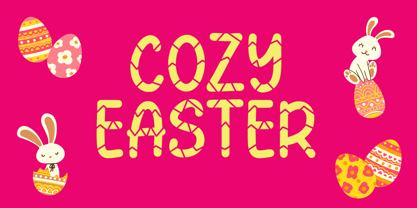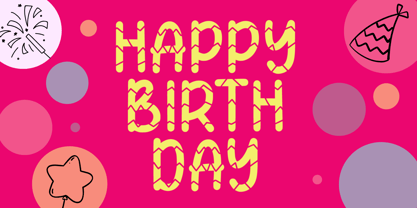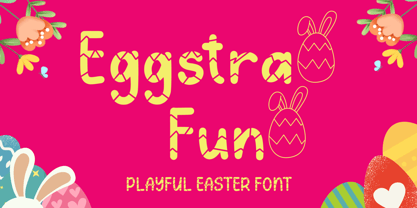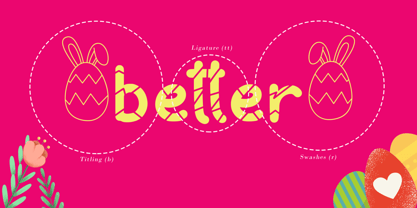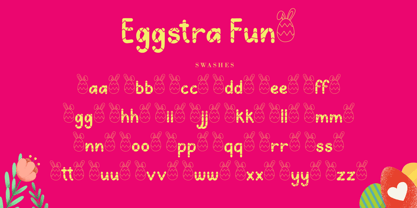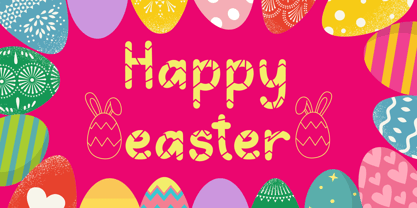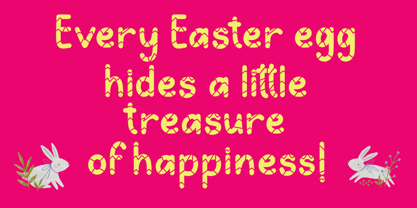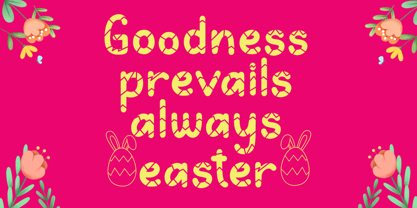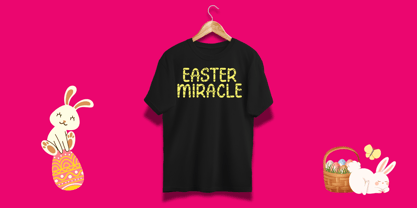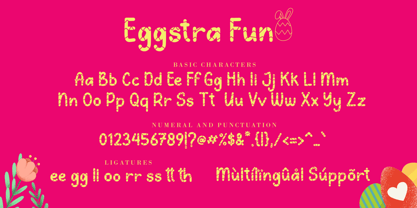
Eggstra Fun
by AEN Creative Studio
The Eggstra Fun Font Family was designed by Agung Eko Nugroho and published by AEN Creative Studio. Eggstra Fun contains 2 styles and family package options.
Looking for the perfect font to complete your Easter-themed designs? Say hello to Eggstra Fun a quirky Easter-themed display font inspired by the patterns and charm of Easter eggs. Its playful, festive style perfectly matches holiday crafting, social media content, and seasonal branding. Eggstra Fun brings warmth and creativity to every piece from adorable greeting cards to cheerful DIY decorations. Let this font be your go-to for spreading Easter joy with style!
Designers: Agung Eko Nugroho
Publisher: AEN Creative Studio
Foundry: AEN Creative Studio
Design Owner: AEN Creative Studio
Eggstra Fun